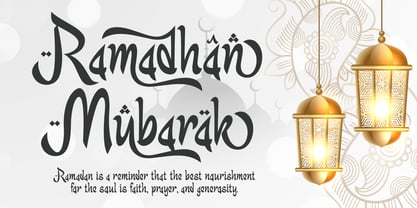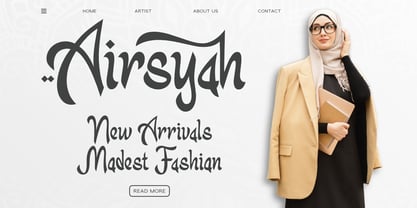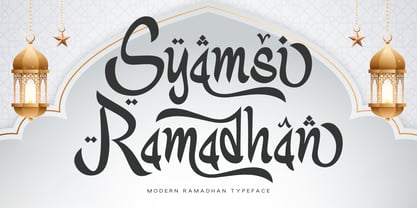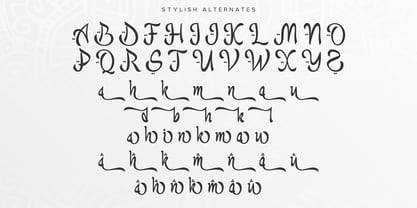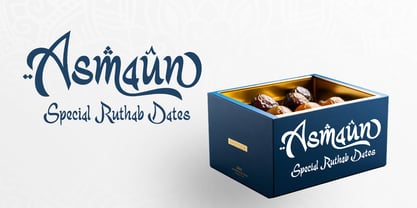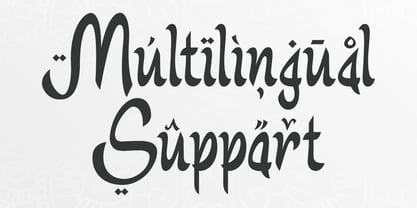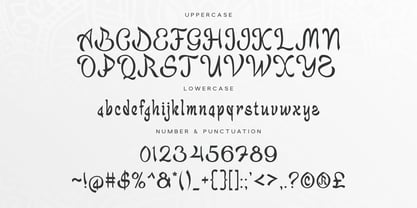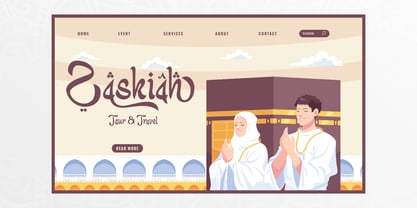
Syamsi Ramadhan
The Syamsi Ramadhan Font Family was designed by Saiful Anwar and published by Sealoung. Syamsi Ramadhan contains 1 styles. More about this family
Timeless Elegance in Every Stroke
Syamsi Ramadhan is a Modern Ramadhan Typeface that seamlessly blends traditional beauty with contemporary design. Its smooth curves and refined details exude a sense of luxury, making it a perfect choice for projects that demand sophistication.
Perfect for Cultural and Luxury Designs
Ideal for logos, wedding invitations, and high-end branding, Syamsi Ramadhan brings an elegant touch that captivates. Its fusion of traditional elements with modern aesthetics makes it an inspiring and eye-catching typeface.
Crafted for Unlimited Creativity
Syamsi Ramadhan empowers designers to create with confidence. Its harmonious balance of elegance and modernity ensures your work leaves a lasting impression while staying true to rich cultural heritage.
Syamsi Ramadhan - Modern Ramadhan Typeface Features:
✔ Ready-to-Use Alternate Characters
✔ Punctuation, Numbers, and Symbols
✔ Uppercase and Lowercase Letters
✔ OpenType Features
✔ Multilingual Support for Various Languages